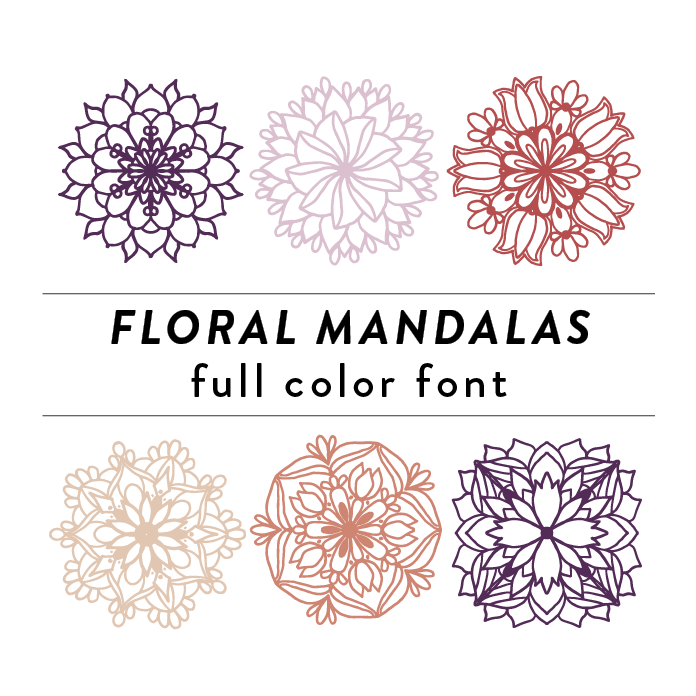
Floral Mandalas Full Color Font is a unique font design inspired by intricate floral mandalas. It features vibrant colors, intricate flower patterns, and decorative flourishes. This font is perfect for adding a touch of elegance and whimsy to any design project. This font is a OTF craft font that will appear in color only when used with the silhouette software.